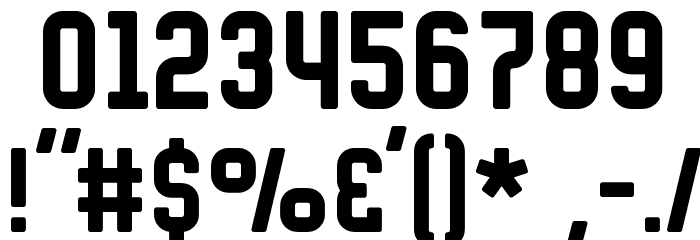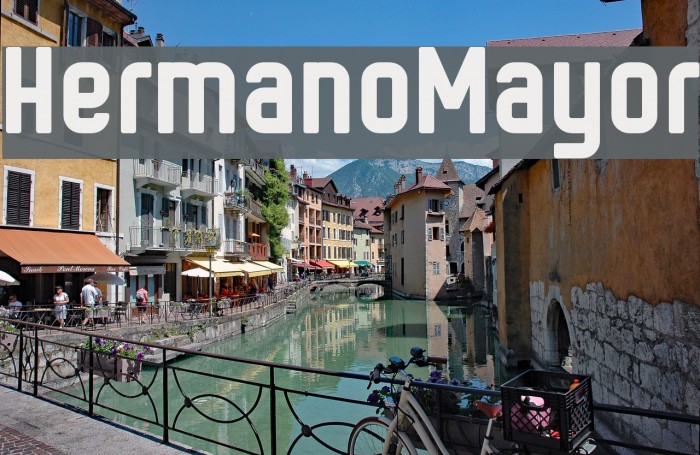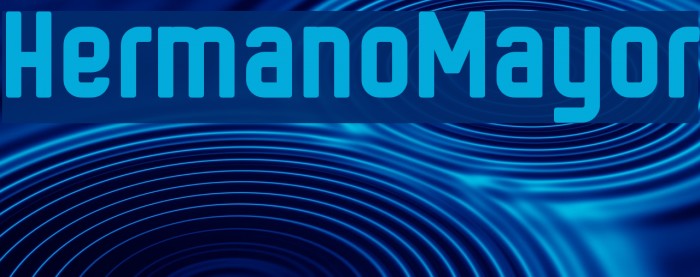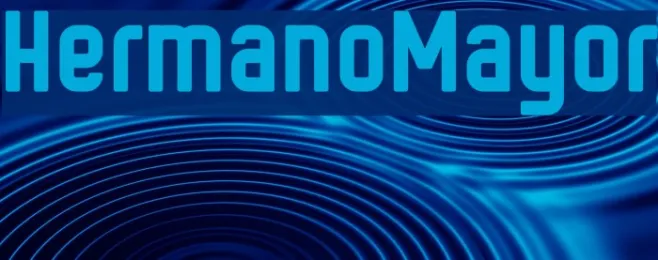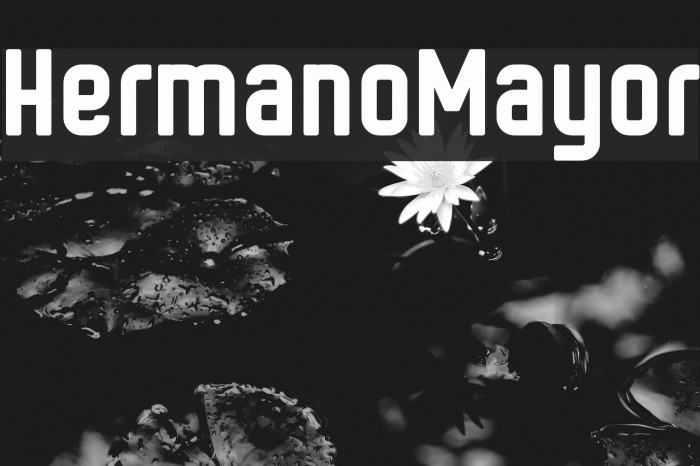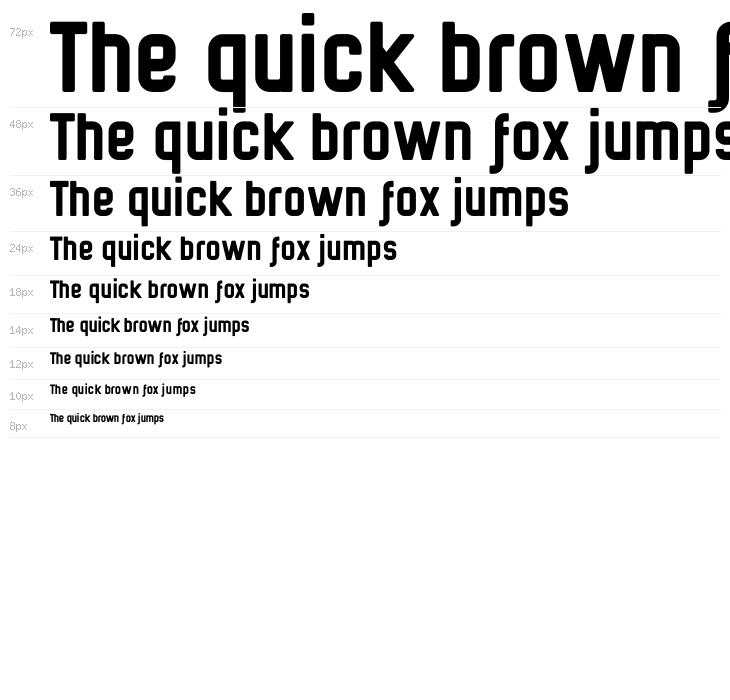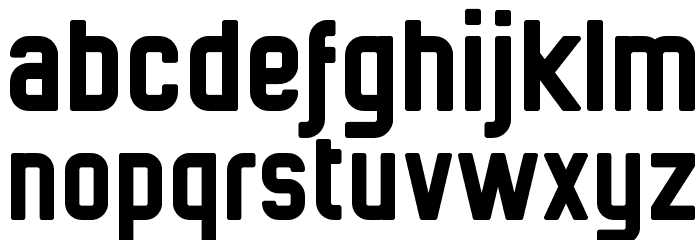
HermanoMayor Font
HermanoMayor Description
This font exhibits a bold and modern sans-serif style with a strong geometric structure. The characters are uniformly thick, providing a consistent and robust appearance. The uppercase letters are slightly taller than the lowercase, maintaining a balanced and cohesive look. The numerals are clear and easily distinguishable, making them suitable for various applications. Special characters are well-defined, enhancing the font's versatility. The overall design is clean and straightforward, ideal for conveying a contemporary and professional tone.